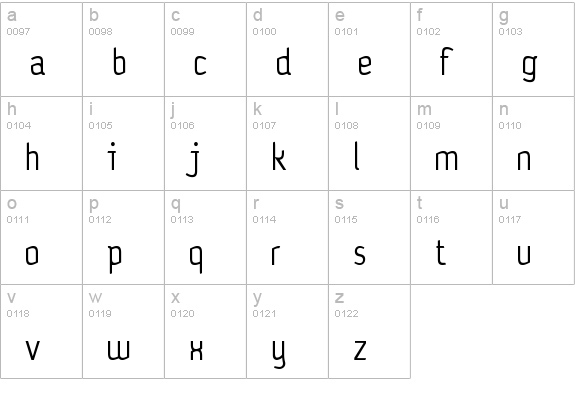
Petrol-Light is a refined, elegant variant in the Petrol typeface family \xE2\x80\x94 well suited to elegant body text, refined sub-headings, and luxury branding.
Introducing Petrol-Light, a sleek and sophisticated font that effortlessly captures the essence of modernity and elegance. Crafted with meticulous attention to detail, this typeface exudes a sense of refined sophistication while maintaining a clean and minimalist aesthetic. Petrol-Light is the perfect choice for any design project that requires a touch of contemporary charm. Its slender and graceful letterforms effortlessly convey a sense of balance and harmony, making it ideal for a wide range of applications, from high-end branding and editorial design to stylish invitations and luxurious packaging. What sets Petrol-Light apart is not only its exquisite design, but also its availability as a free downloadable font. Yes, you heard it right – this remarkable typeface can be yours without spending a dime! Simply head over to FontsMarket.com, where Petrol-Light awaits, ready to enhance your creative endeavors. Unlock your design potential with Petrol-Light and experience the seamless fusion of elegance and modernity. Whether you're a professional designer or a passionate creative, this font is bound to become your go-to choice for projects that demand a touch of sophistication. So why wait? Don't miss out on this incredible opportunity to enhance your designs with Petrol-Light. Download it for free at FontsMarket.com today and let your creativity soar to new heights.